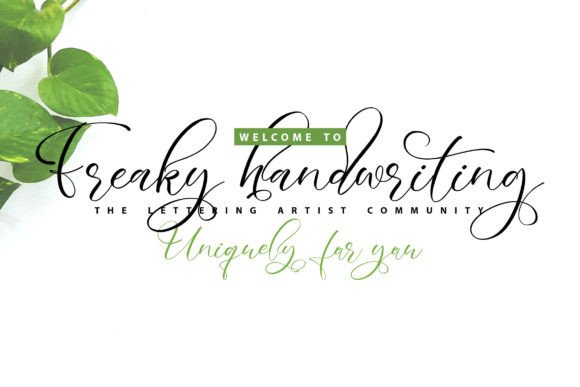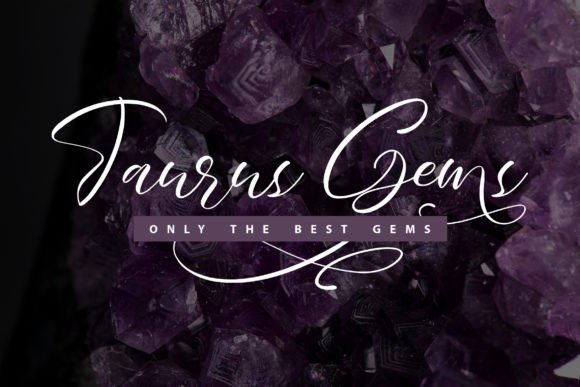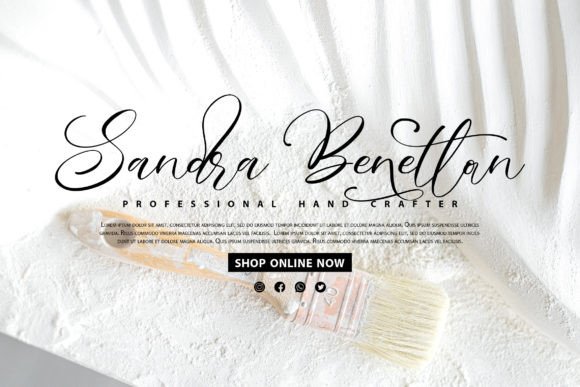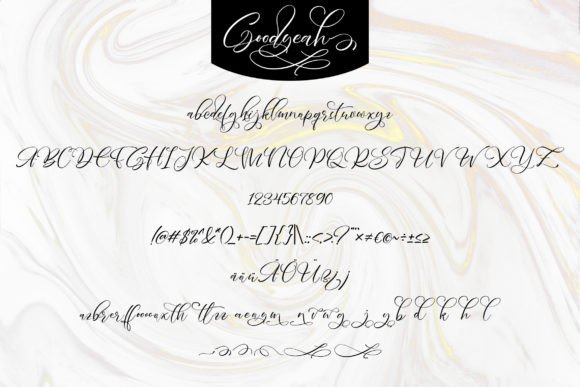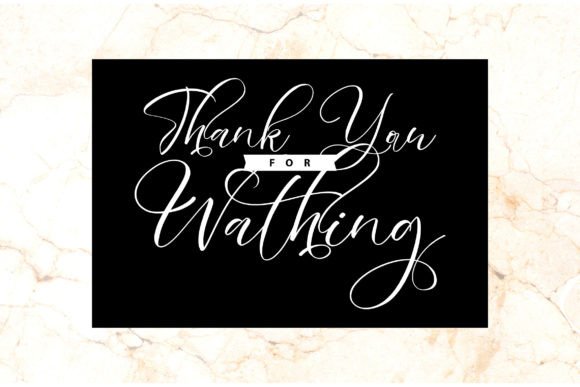
Introducing Goodyeah Font: Elevate Your Designs with Elegance and Sophistication
In the world of typography, a font can make or break a design. It’s the perfect blend of style, elegance, and readability that can elevate a creation from ordinary to extraordinary. If you’re a designer, crafter, or simply someone who appreciates beautiful typography, you’re in luck. Say hello to Goodyeah Font, a dazzling script font that’s about to become your new favorite asset.
What Makes Goodyeah Font Special?
Goodyeah Font is not just any ordinary font. It’s a meticulously crafted, highly detailed script font designed to add a touch of sophistication to any project. Whether you’re working on a logo, a branding campaign, a website, or a crafting project, Goodyeah Font is the perfect companion. Its elegant and flowing script will instantly elevate your design, making it stand out from the crowd.
Key Features of Goodyeah Font
- PUA Encoded: Goodyeah Font is PUA (Private Use Area) encoded, which means you can access all glyphs and swashes with ease. This feature allows for greater flexibility and creativity in your designs, making it easier to experiment with different styles and combinations.
- Highly Detailed: Every letter, swash, and glyph in Goodyeah Font is meticulously crafted to ensure maximum readability and aesthetic appeal. The attention to detail is evident in every curve and line, making this font perfect for projects where quality matters.
- Versatile: Goodyeah Font is incredibly versatile. It can be used for a wide range of projects, from elegant logos and sophisticated branding campaigns to beautiful crafting projects and stylish websites.
- Easy to Use: Despite its complex appearance, Goodyeah Font is surprisingly easy to use. The PUA encoding ensures that you can access all the additional features without any hassle, making it suitable for designers of all skill levels.
Why Choose Goodyeah Font?
With so many fonts available, why choose Goodyeah Font? The answer lies in its unique blend of elegance, versatility, and usability. Here are a few reasons why Goodyeah Font should be a part of your font library:
- Enhance Your Designs: Goodyeah Font has the potential to transform your designs. Its elegant script will add a touch of sophistication and style, setting your projects apart from the rest.
- Save Time: With Goodyeah Font, you don’t have to spend hours designing a custom script font from scratch. This font is ready to use, saving you time and effort without compromising on quality.
- Limitless Creative Possibilities: The PUA encoding and extensive glyph library of Goodyeah Font open up a world of creative possibilities. Experiment with different styles, swashes, and combinations to create something truly unique.
Who Can Benefit from Goodyeah Font?
Goodyeah Font is perfect for a wide range of designers and crafters, including:
- Graphic Designers: Add a touch of elegance to your branding campaigns, logos, and marketing materials.
- Web Designers: Enhance your website designs with a sophisticated script font that will leave a lasting impression on your visitors.
- Crafters: Use Goodyeah Font to add a personal touch to your crafting projects, from invitations to DIY products.
- Stationery Designers: Create beautiful stationery sets, including greeting cards, invitations, and letterheads.
Goodyeah Font is more than just a font – it’s a design asset that can elevate your creations to new heights. With its elegant script, highly detailed craftsmanship, and PUA encoding, this font offers limitless possibilities for designers and crafters. Whether you’re looking to add a touch of sophistication to your designs or simply want to explore new creative avenues, Goodyeah Font is an excellent choice. Add it to your font library today and discover a world of elegance and creativity at your fingertips.